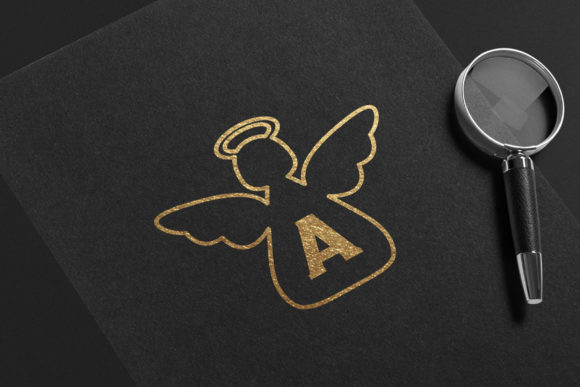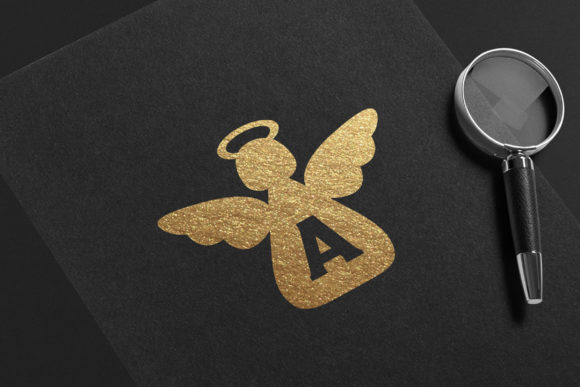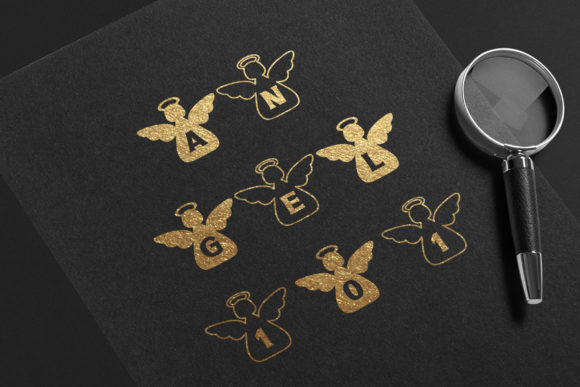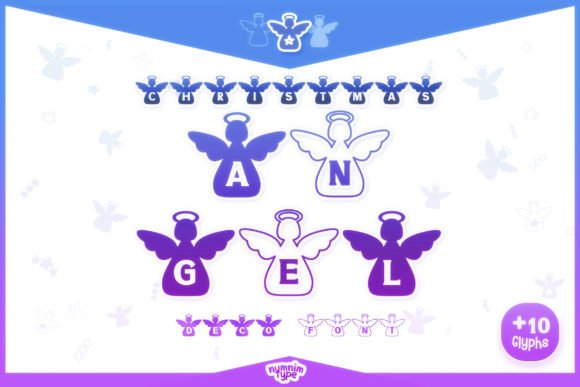
Introduction to Christmas Angel Font
Christmas Angel is a cool and uniquely designed decorative font, created particularly for the Christmas Day.
The characters are fun and playful, perfect for adding a bold accent to your designs .